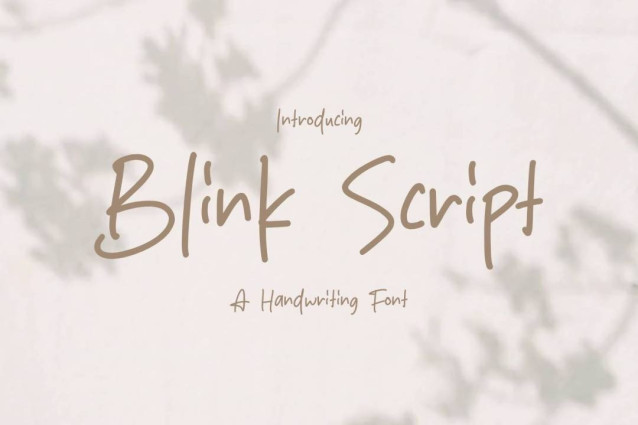
Blink Script Font
Blink Script Font is a simple and friendly handwritten font. Its natural and unique style makes it incredibly fitting to a large pool of designs. The only limit is your imagination!